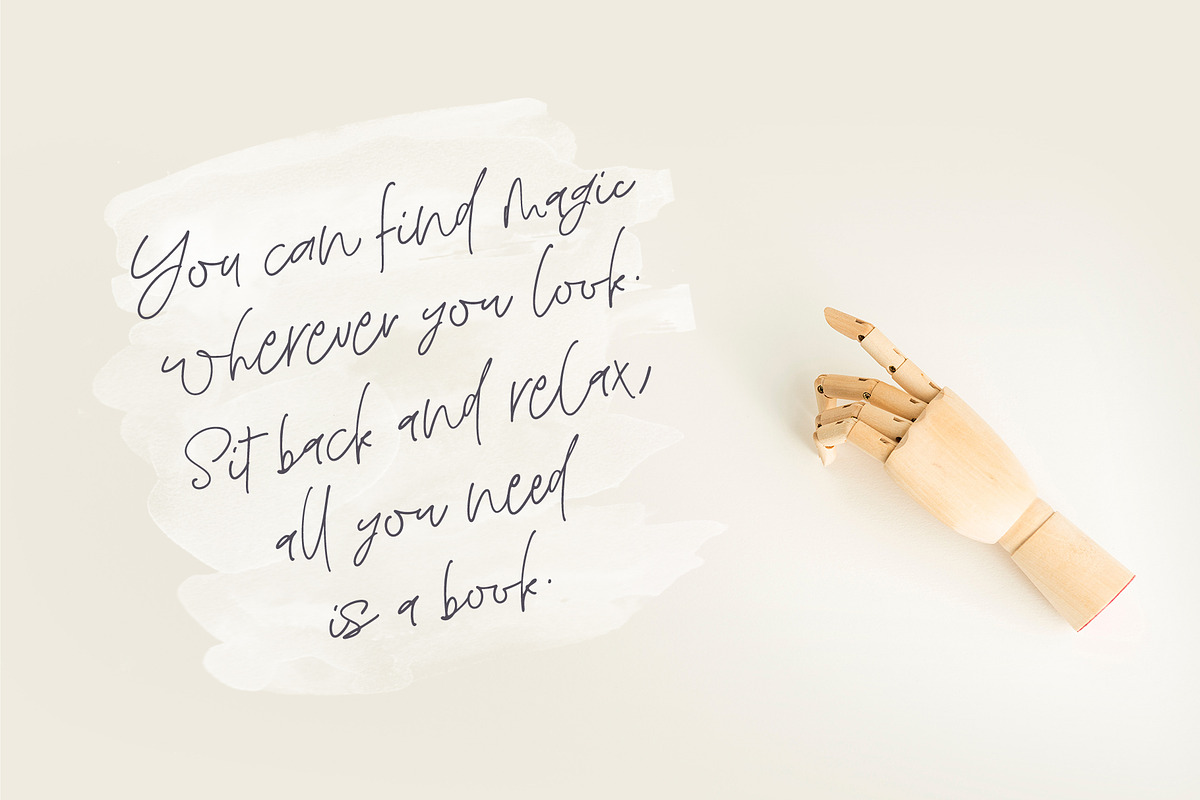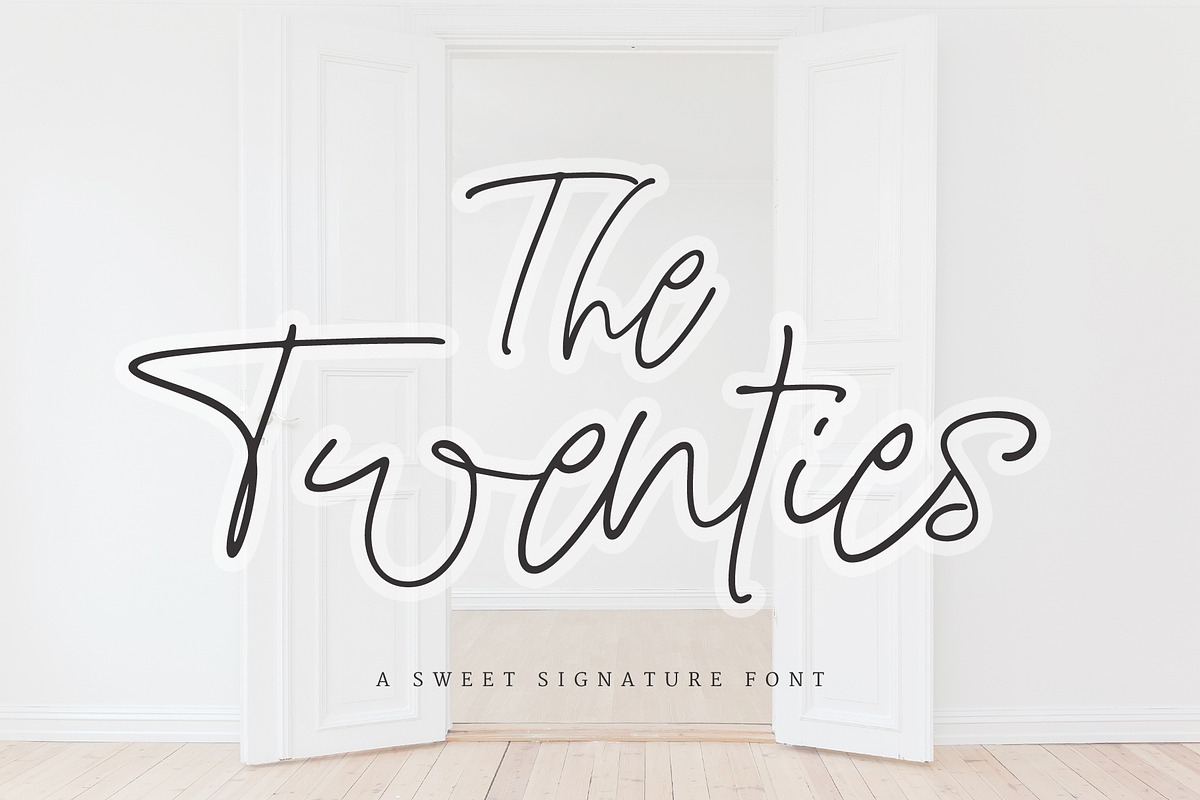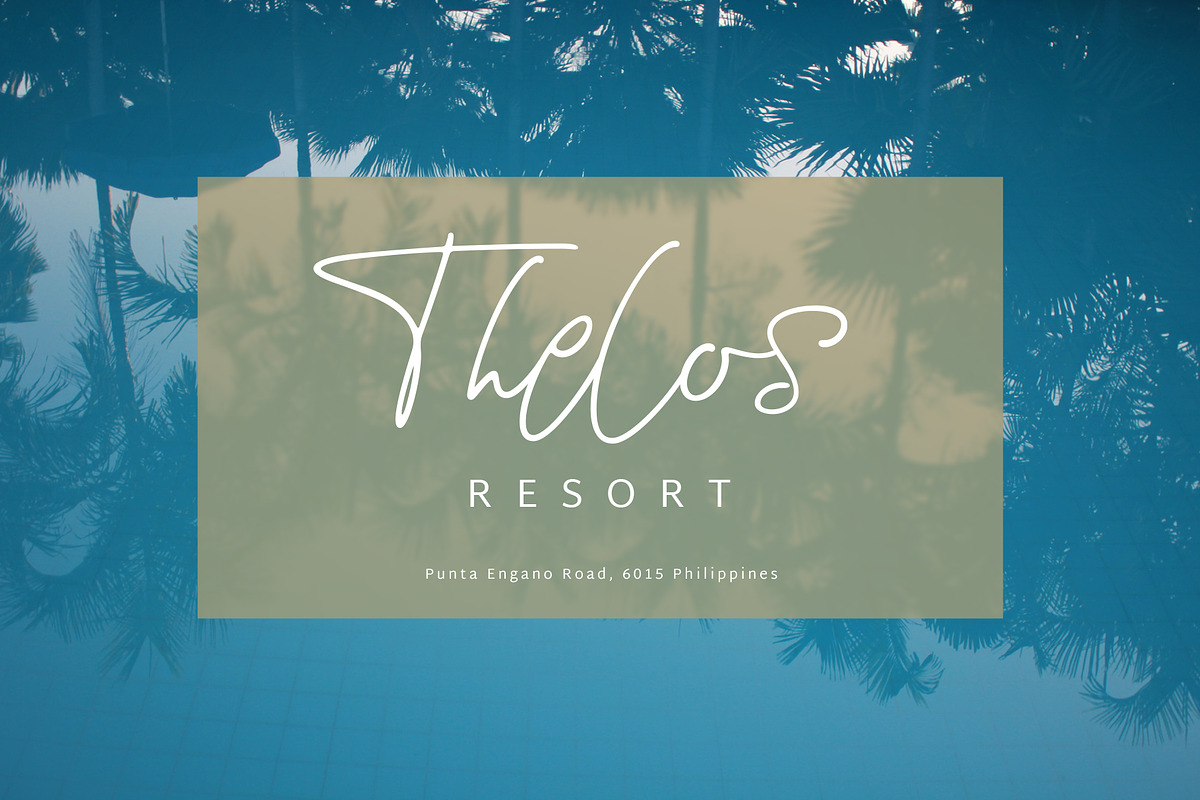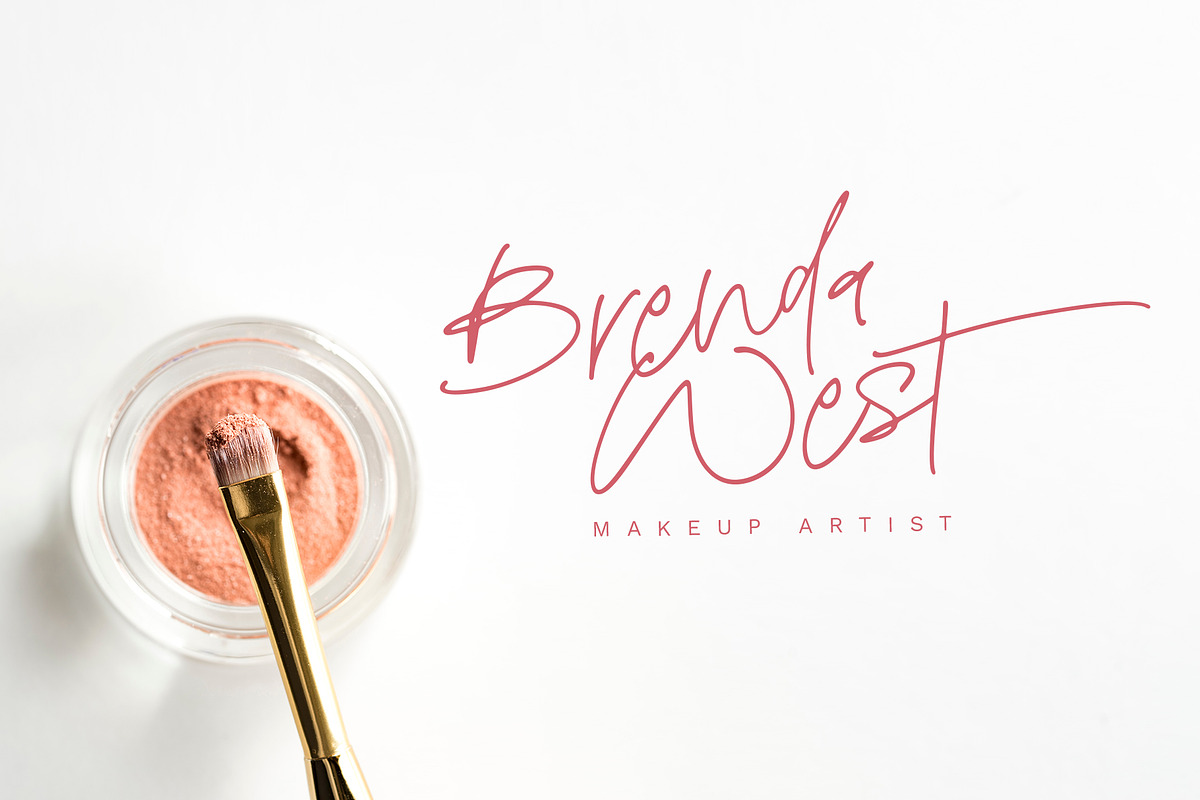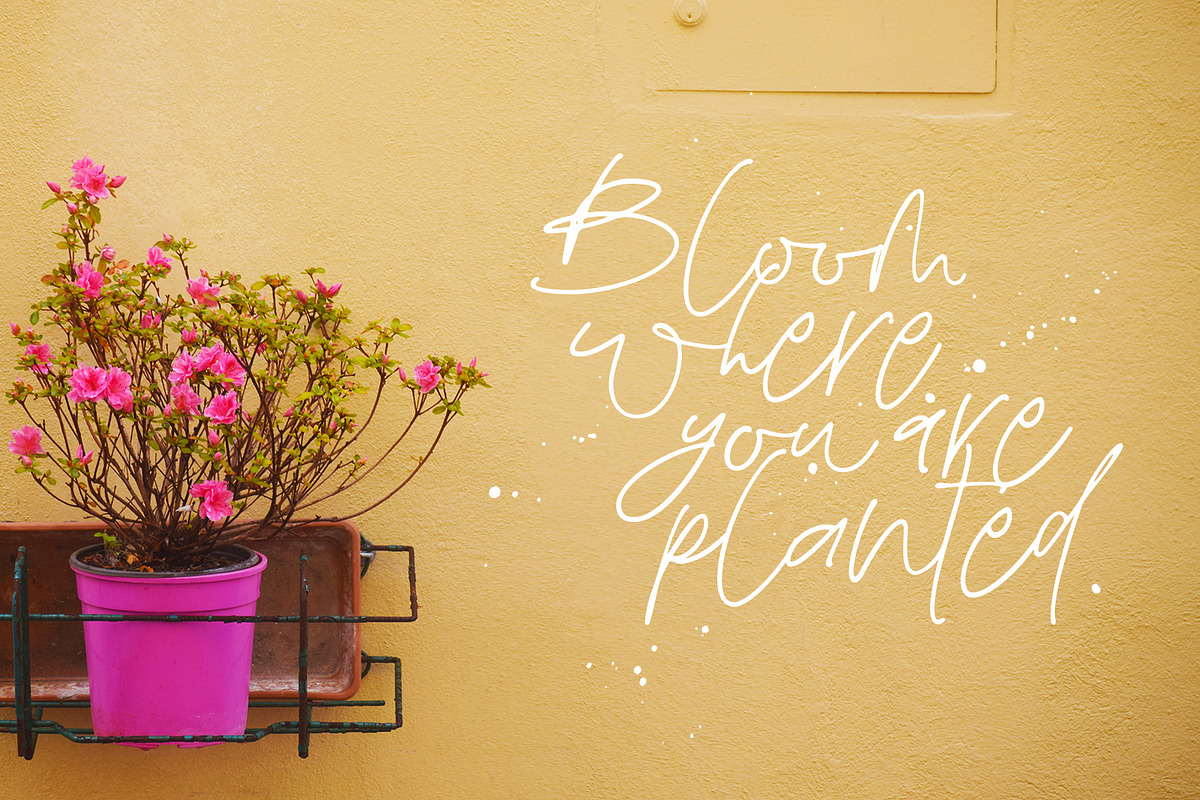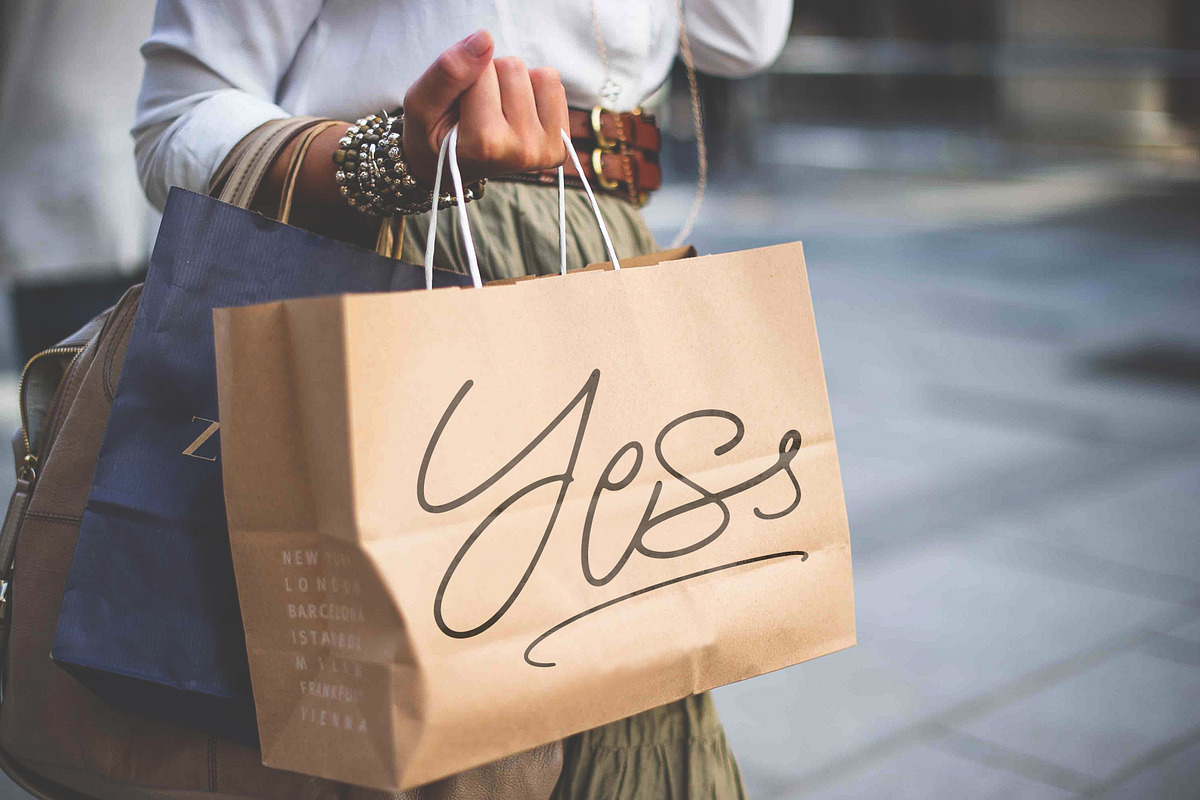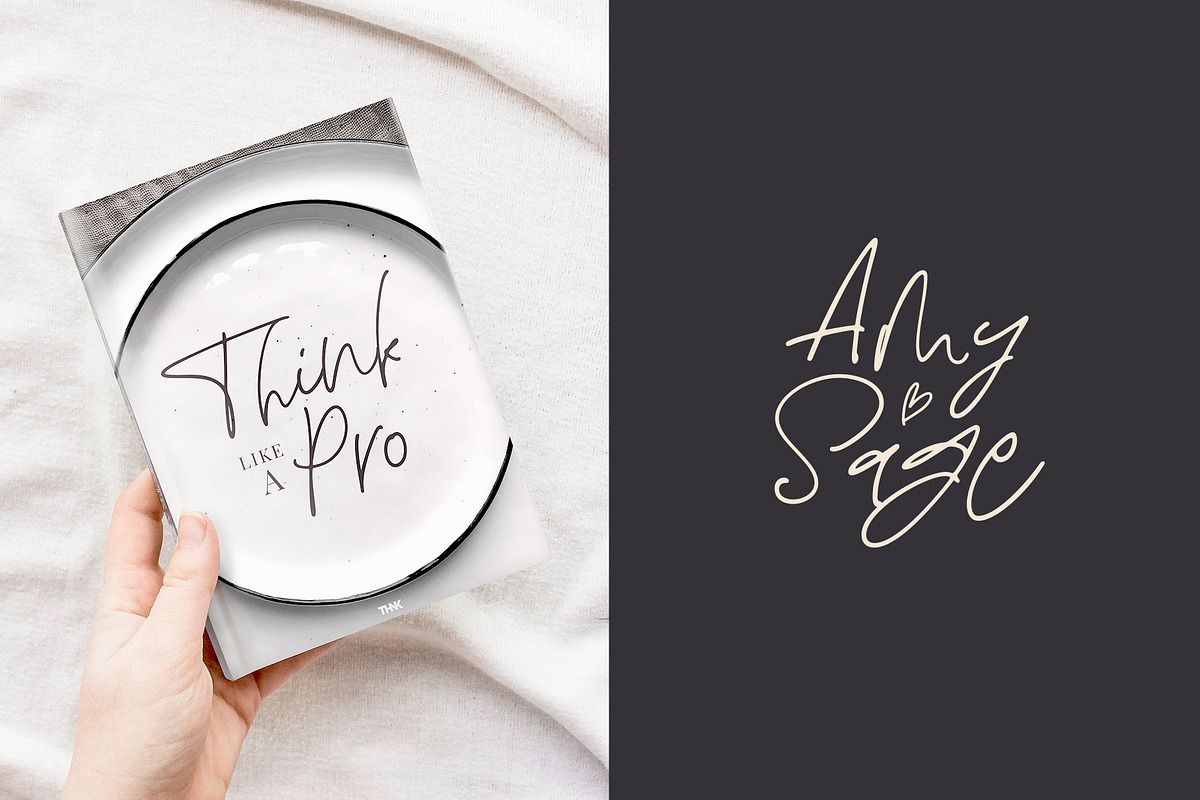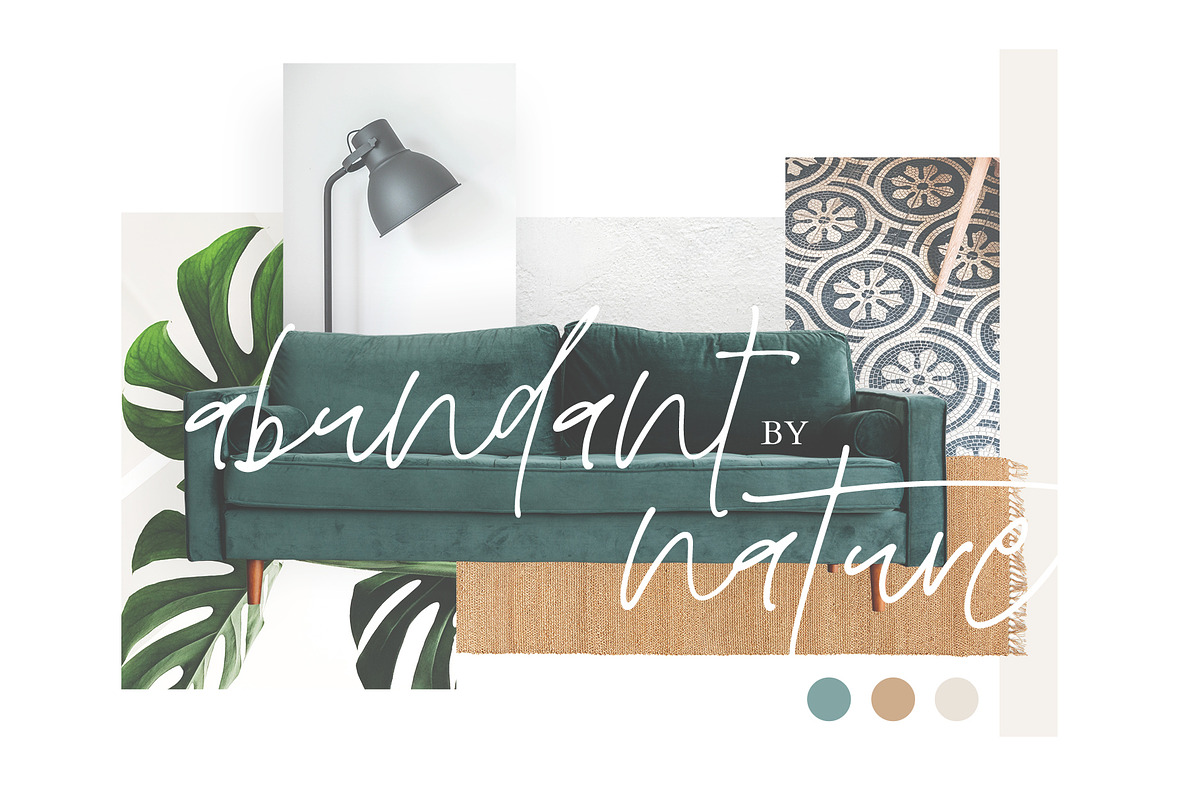
The Twenties |A Sweet Signature Font
The Twenties is a sweet & stylish signature font that displays eye-catching, genuine hand-lettered strokes. It features a complete set of alternate letters, ligatures and some terminal forms to sustain the hand written style. It’s excellent for pairing with both Sans Serif and Serif fonts as well as for logos, wedding invites, greeting cards, headers, quotes, social media, branding, packaging etc.
Upper Case and Lower Case Letters
Full Set of Alternate Letters
- It features a complete set of alternate letters, ligatures and some terminal forms to sustain the hand written style.